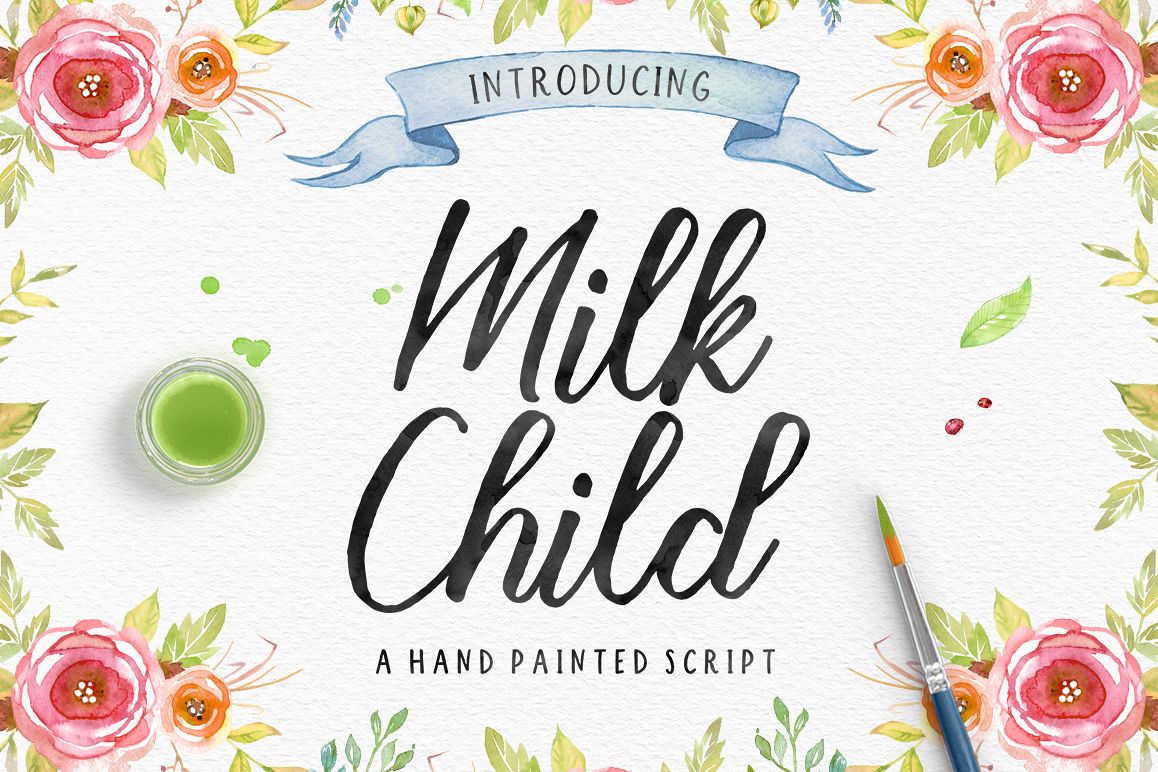
Milk Child
Introducing Milk Child is a organic, energetic, dynamic and modern handwriting script that can be used for various purposes.
such as the title, correspondence, wedding invitations, letterheads, signage, labels, signature newsletters, logos, posters, badges, etc.